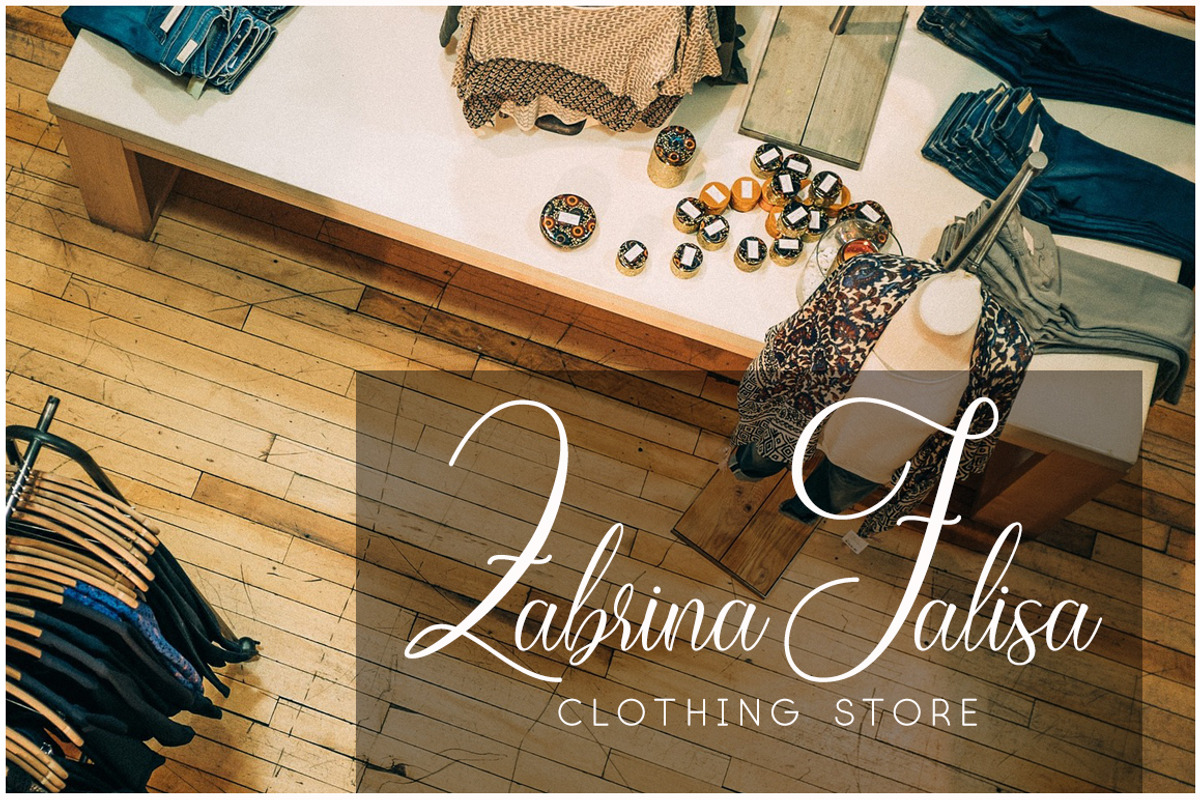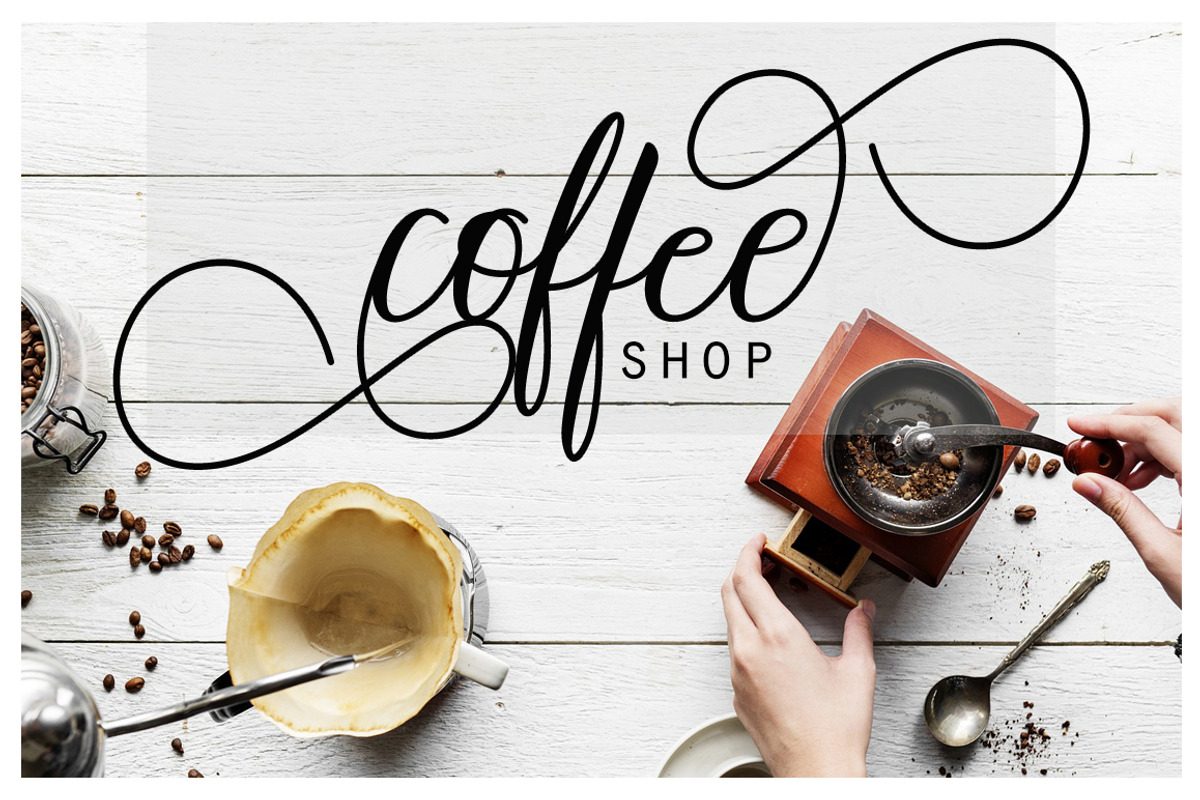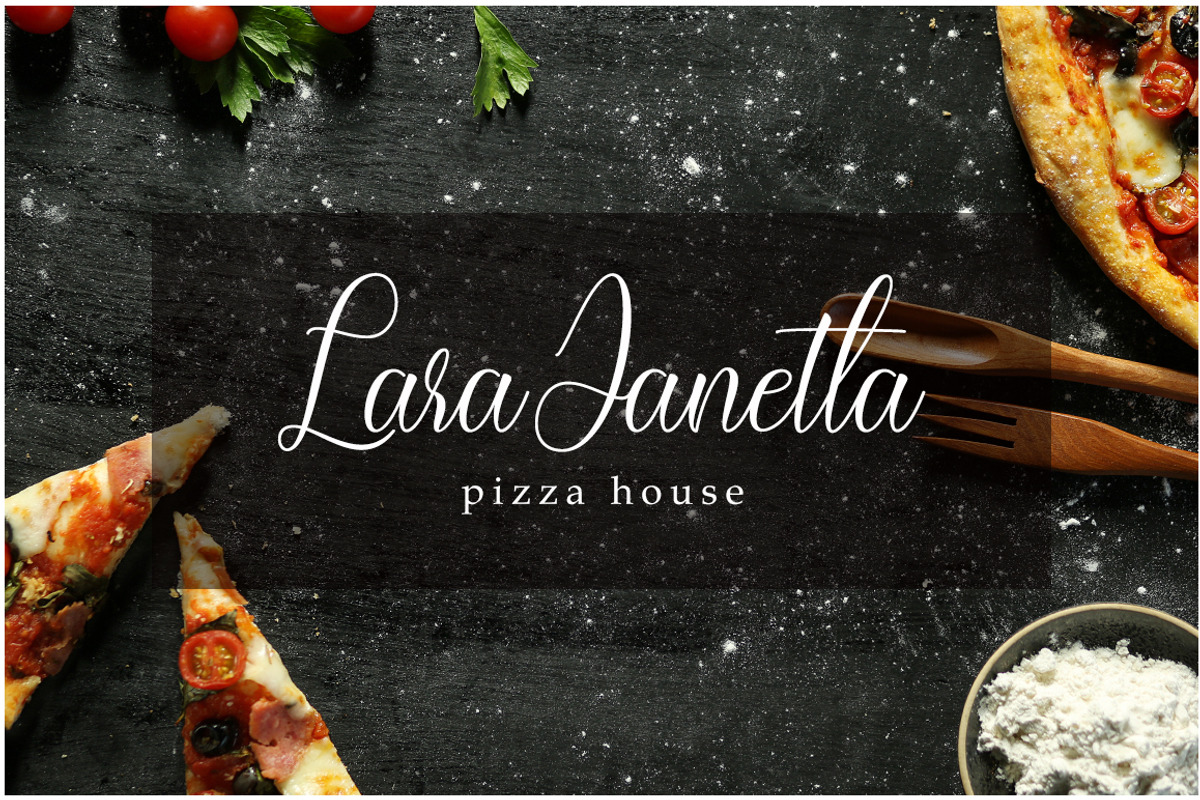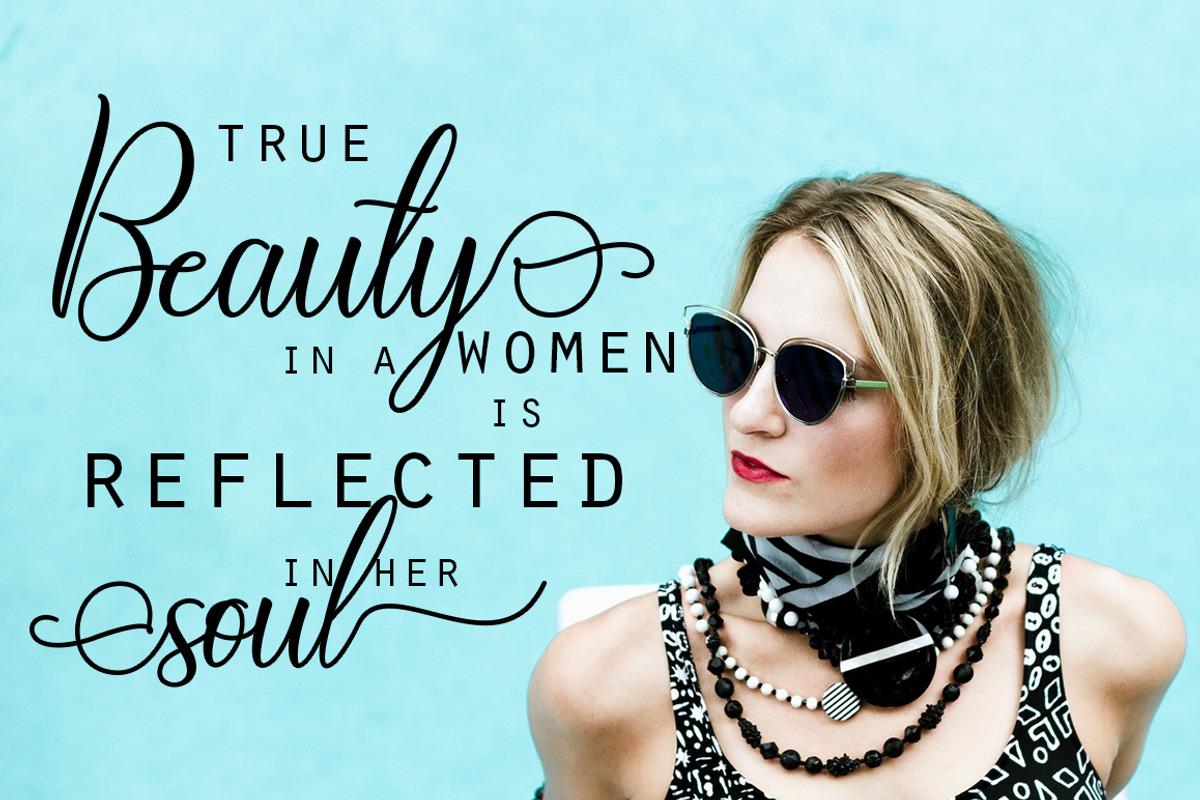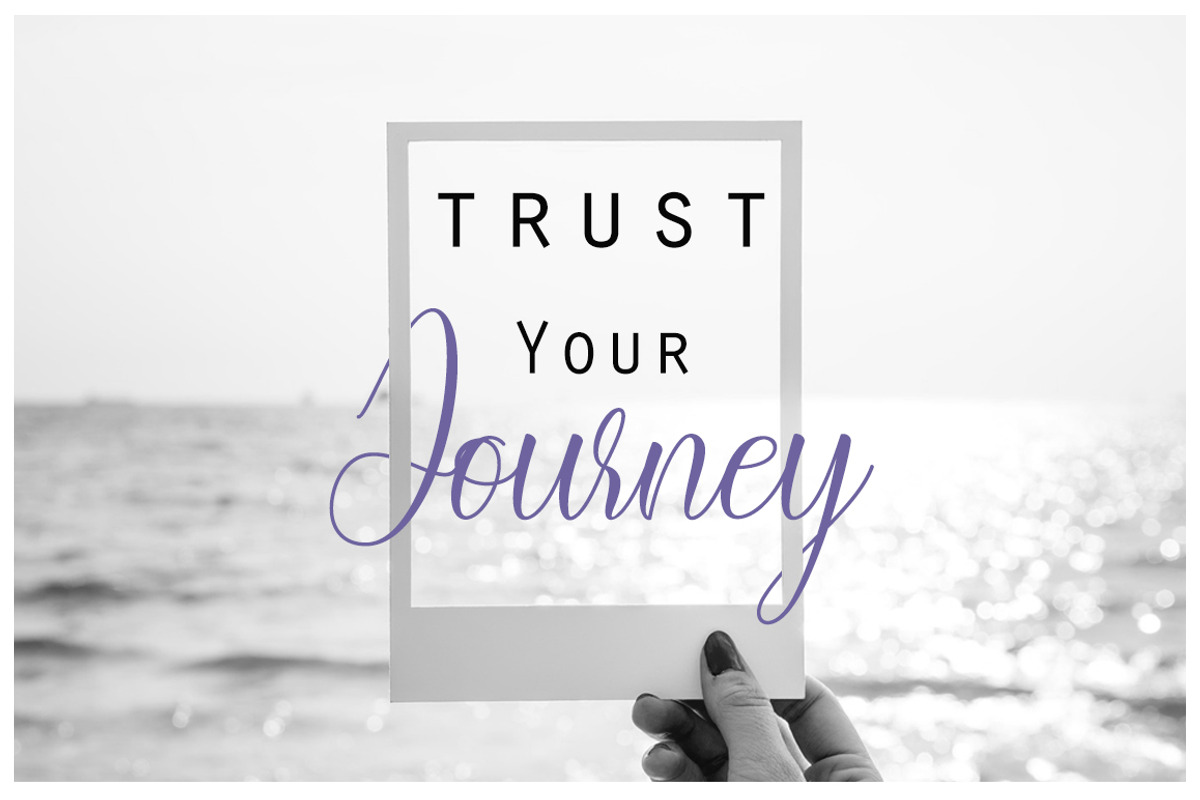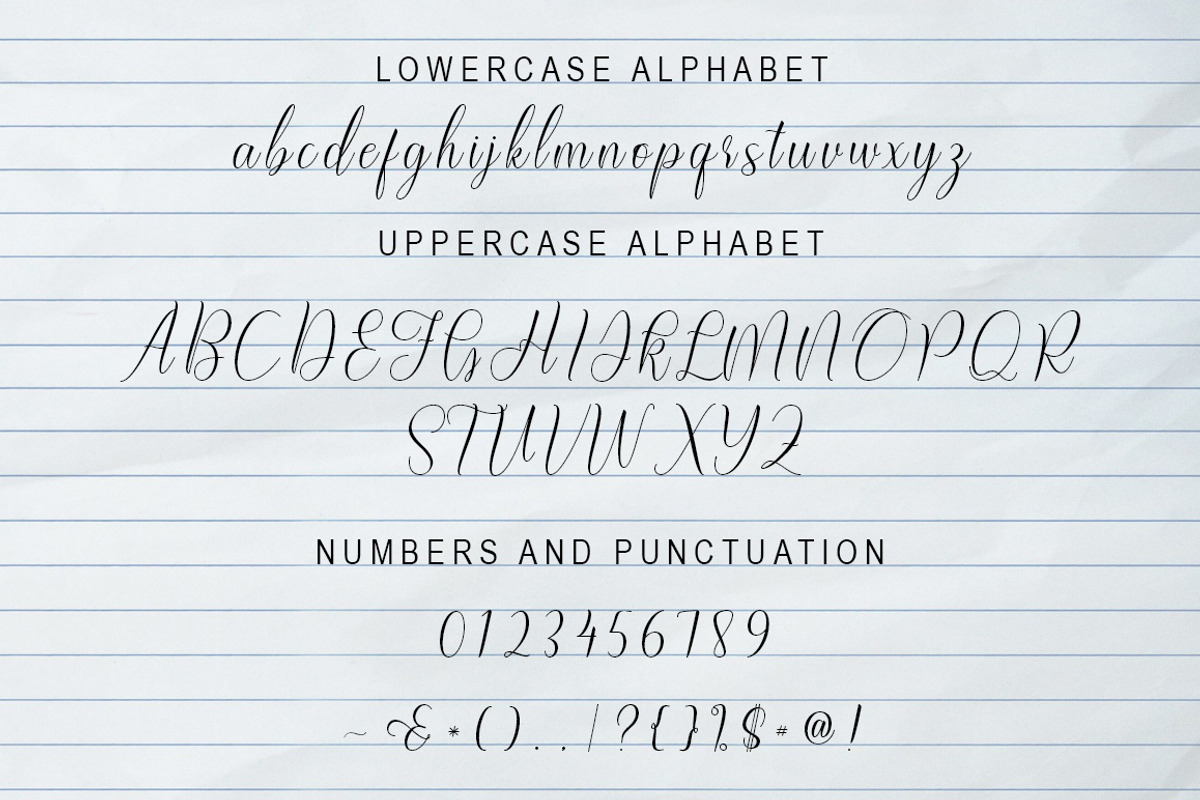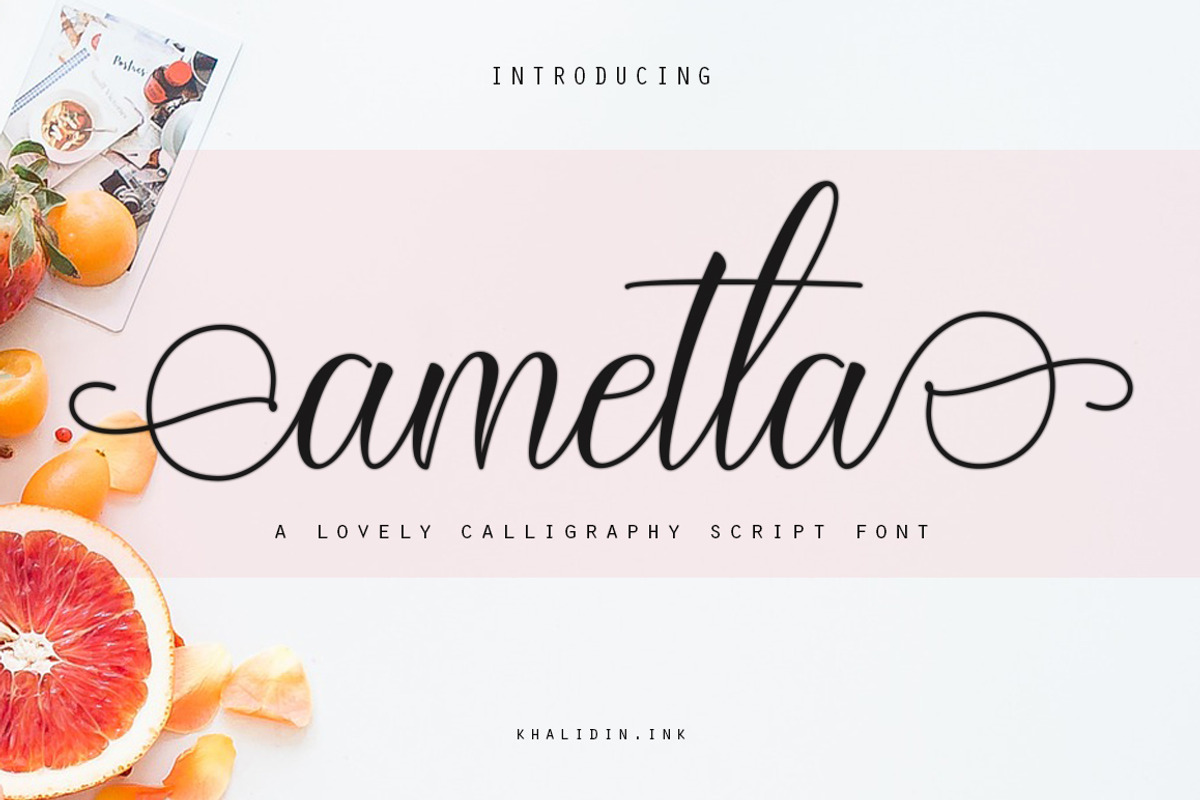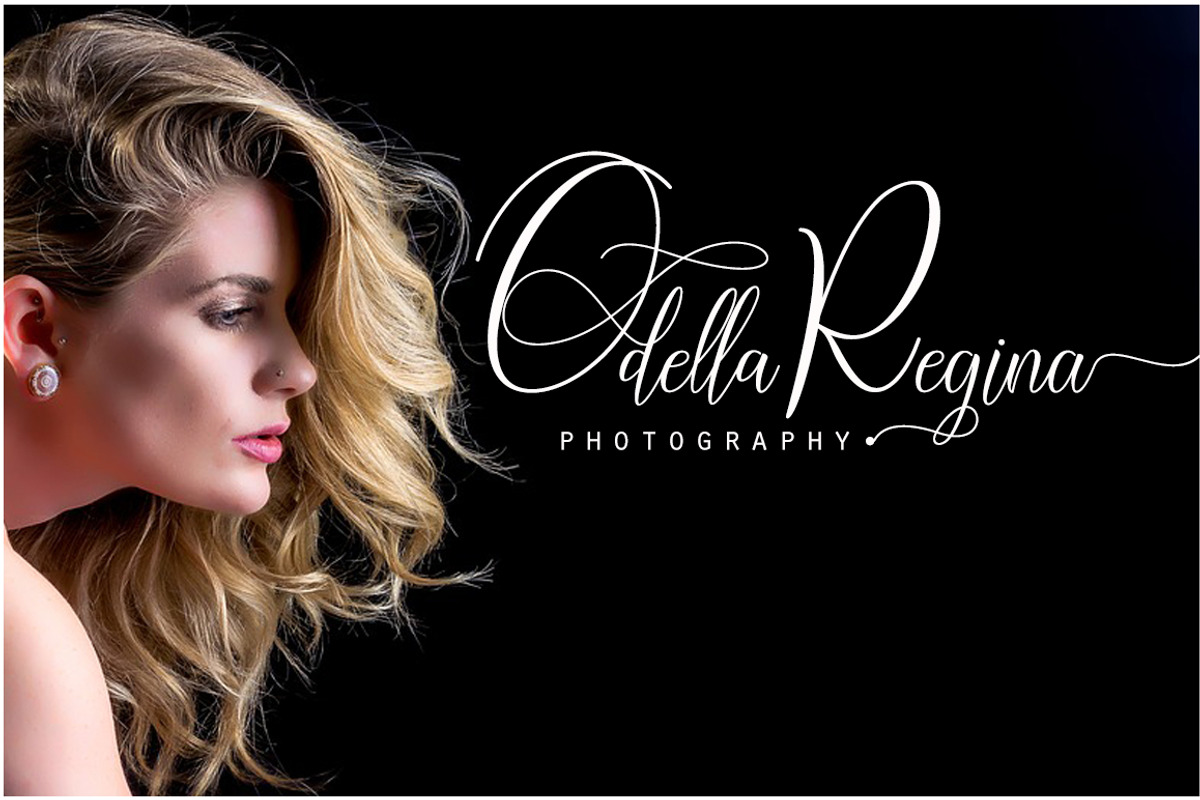
ametta Script Font
NEW FRESH ametta Script Font will add a sexy, feminine look to your designs in an instant. Because ametta is very legible, it can be used for both personal projects as well as business orientated designs. ametta Script Font Script come with 651 glyph.
This one should make your designs instantly professional and jaw-dropping! Be a perfect professional in a minute and start creating modern designs like ads, sales, logos, wedding, branding, posters, social media text overlays today!
ametta Script Font by Khalidin.Ink fits naturally into Branding, posters, packaging, typography.